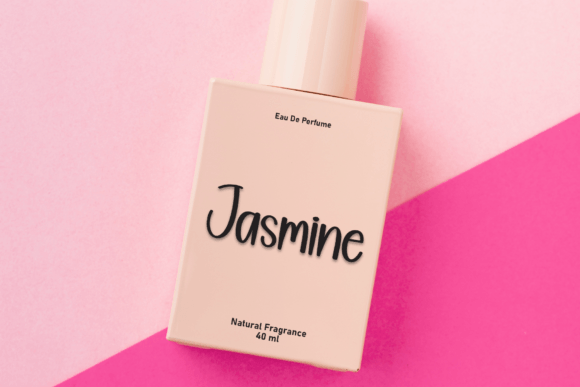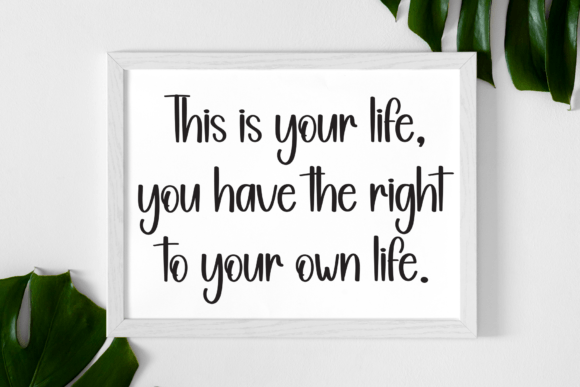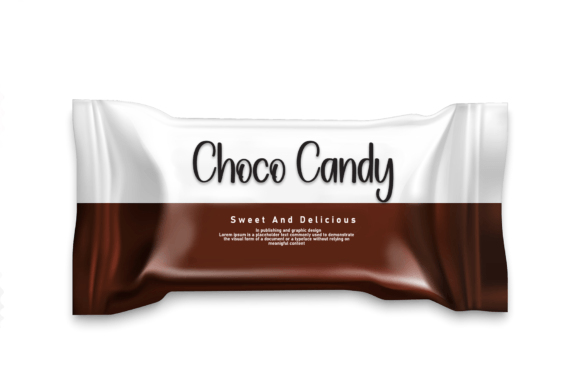
Introduction to Pink Blue Font
Have you ever stared at a blank canvas, eager to bring your creative project to life? The possibilities seem endless, but the right design resource can make all the difference. That’s where the enchanting Pink Blue Font comes in – a charming handwritten font that’s sure to captivate your audience.
With its natural, unique style, the Pink Blue Font is a versatile design element that can elevate a wide range of creative projects. Whether you’re working on a graphic design, a social media post, or a personal logo, this high-quality font is an excellent choice. Its friendly and approachable vibe makes it perfect for designers looking to add a touch of warmth and personality to their designs.
Key Features of Pink Blue Font
- Pink Blue Font is a high-quality design resource ideal for creative projects, offering a unique blend of elegance and sophistication.
- The font features a transparent background, making it easy to layer and combine with other design elements.
- The font includes a range of characters, including uppercase and lowercase letters, numbers, and punctuation marks, making it suitable for a variety of applications.
- This font is ideal for designers looking for a versatile and stylish design resource, perfect for branding, logos, and other creative projects.
- Pink Blue Font is a unique and creative solution for designers seeking a high-quality, free design resource with a transparent background.
Honest Review: Pink Blue Font
I recently came across the Pink Blue Font, and I’m excited to share my honest thoughts with you. As a designer, I’m always on the lookout for high-quality design resources that can elevate my creative projects.
- The Pink Blue Font is incredibly versatile and can be used for a variety of projects, from digital designs to print materials.
- The font comes with a transparent background, making it easy to use in any design scenario.
- The font is a bit limited in terms of its character set, which may not be suitable for projects that require a wide range of characters.
- The font may not be suitable for use in very small sizes, as it can become difficult to read.
Overall, I’m impressed with the Pink Blue Font and would definitely recommend it to fellow designers. Its high quality and versatility make it a valuable addition to any design arsenal. While it may have some limitations, I believe it’s a great resource for any creative project.
Pink Blue Font is a versatile design resource ideal for creative projects that require a touch of elegance and sophistication. With its high-quality design and transparent background, this font is perfect for various applications.
Tips for Getting the Most Out of Pink Blue Font
Experiment with different font sizes and styles to create a visually appealing design. Use the transparent background to layer the font over images or other design elements.
Pink Blue Font is ideal for wedding invitations, baby shower invitations, and other creative projects that require a touch of elegance and sophistication.
What is the recommended usage for the Pink Blue Font?
The Pink Blue Font is designed for use in a variety of creative projects, including branding, advertising, and digital design. It’s particularly well-suited for projects that require a unique, eye-catching font with a high level of visual interest. However, please use your discretion when using the font in projects that require a more formal or traditional tone.